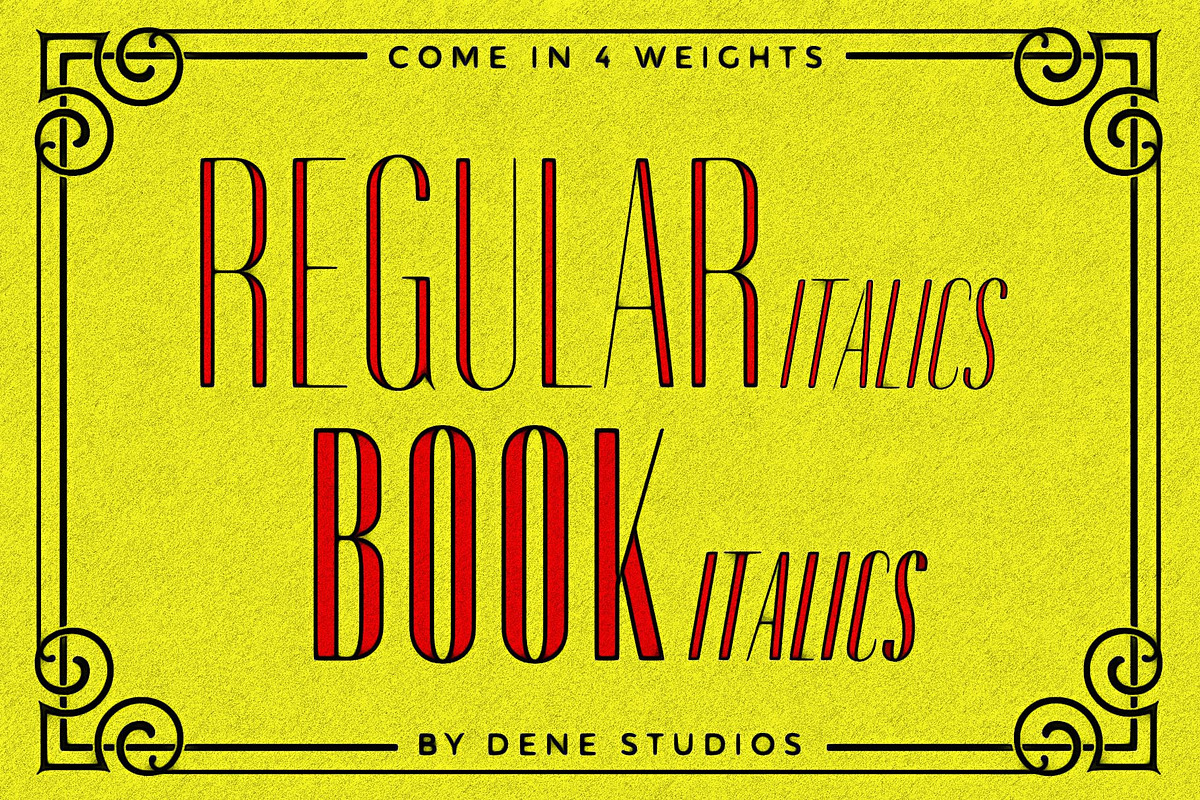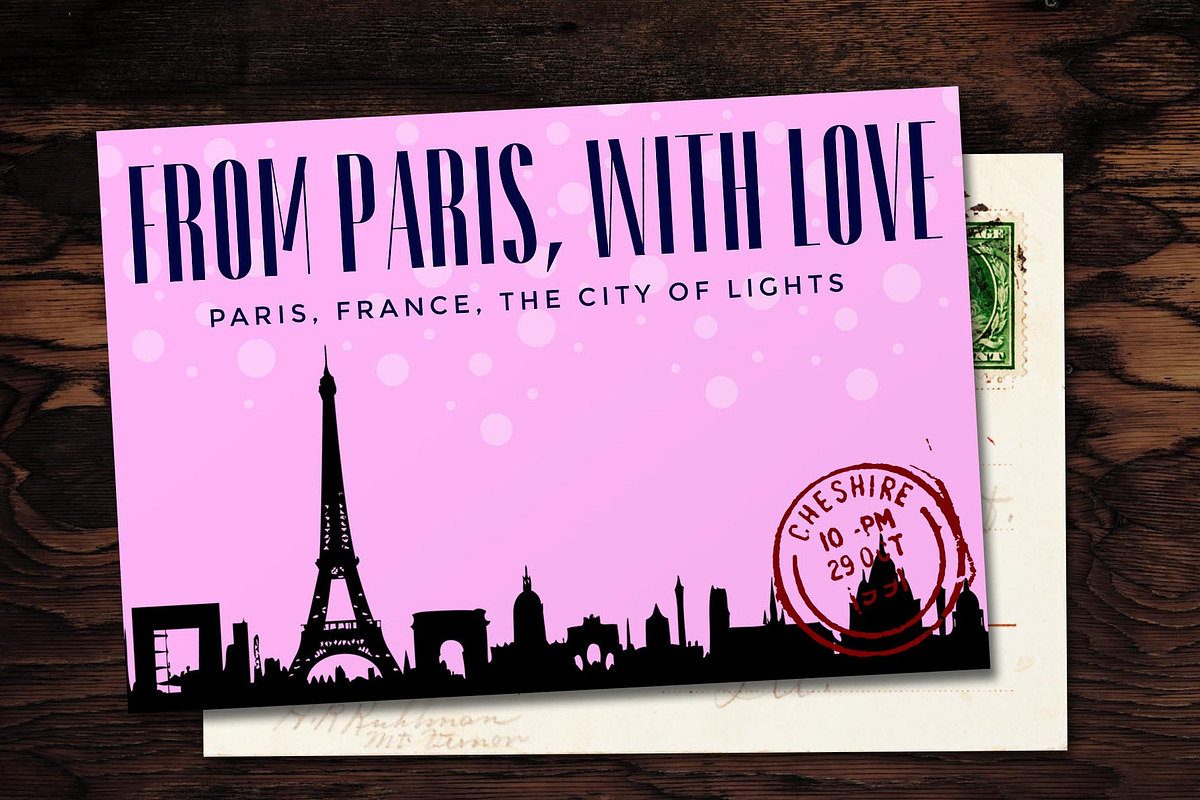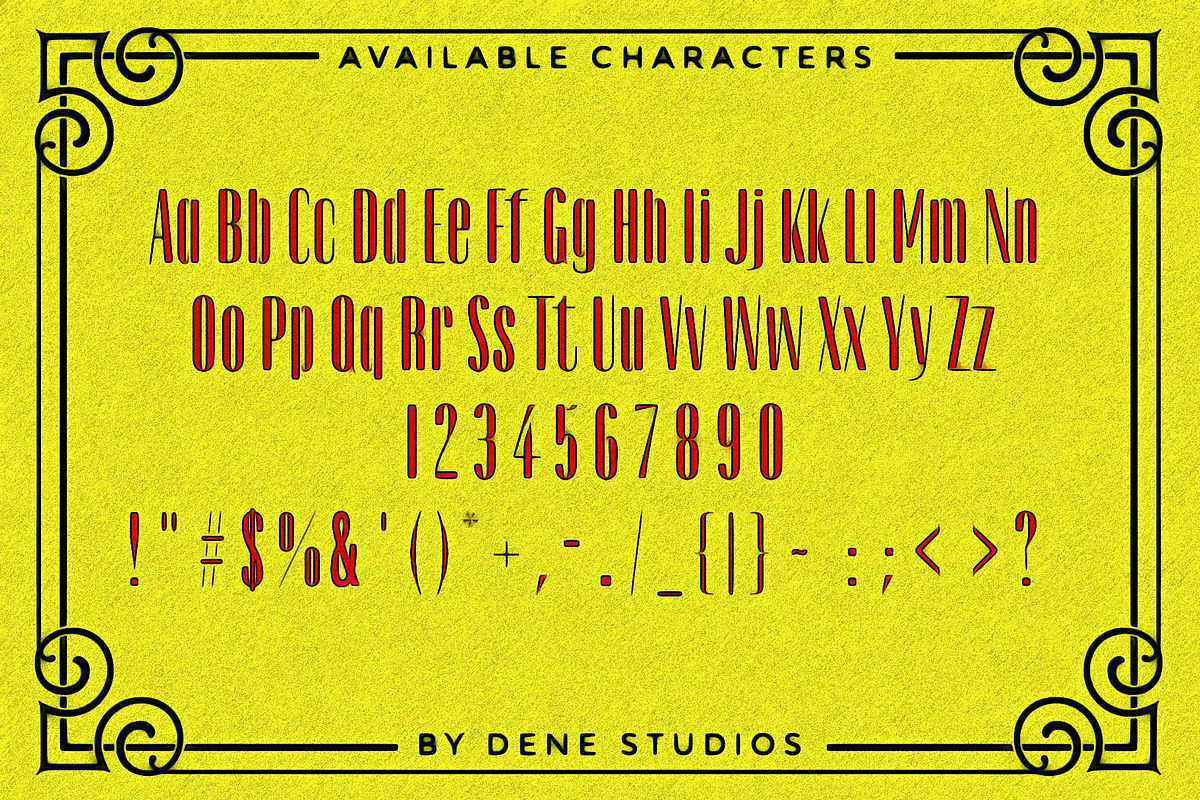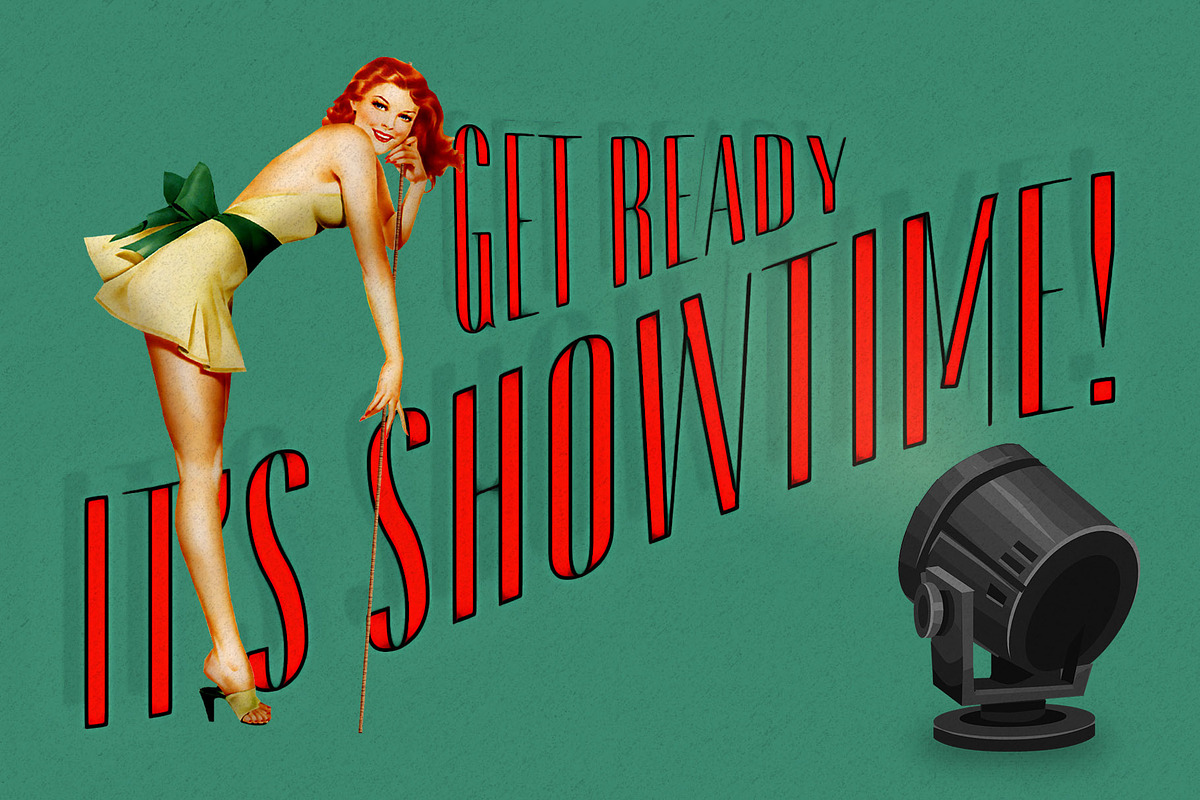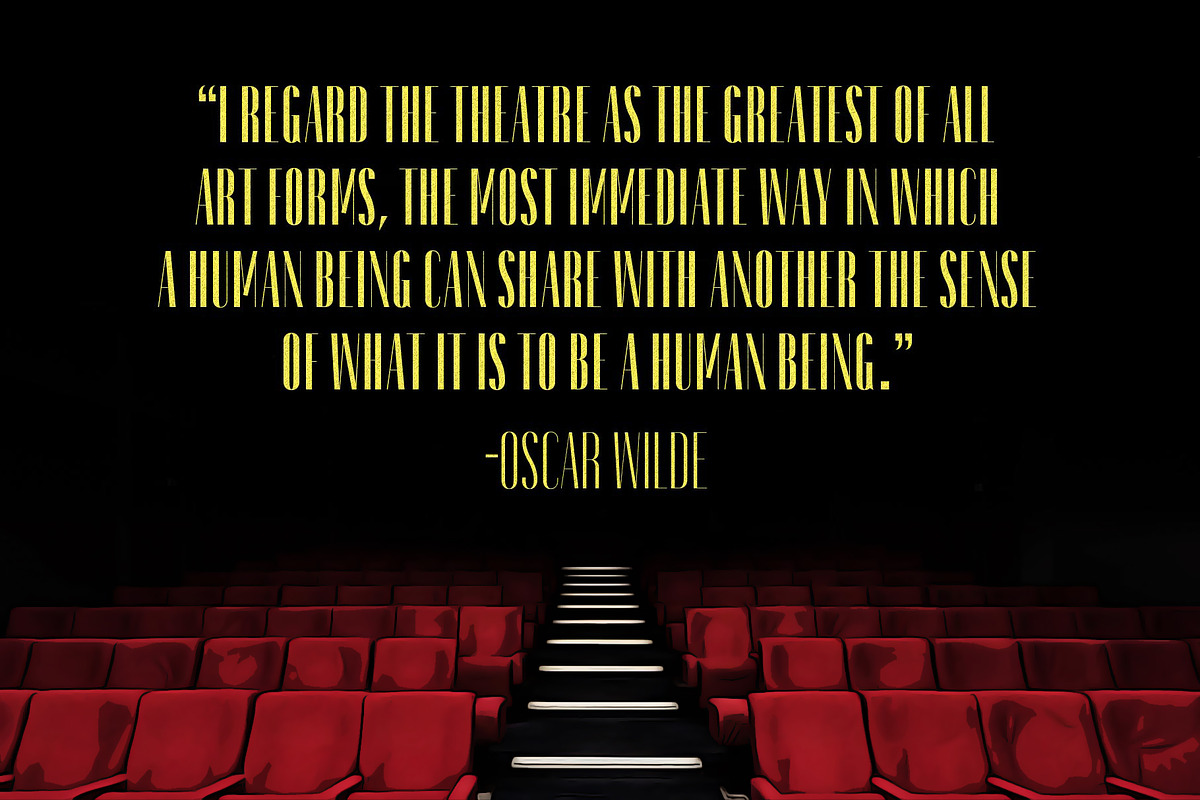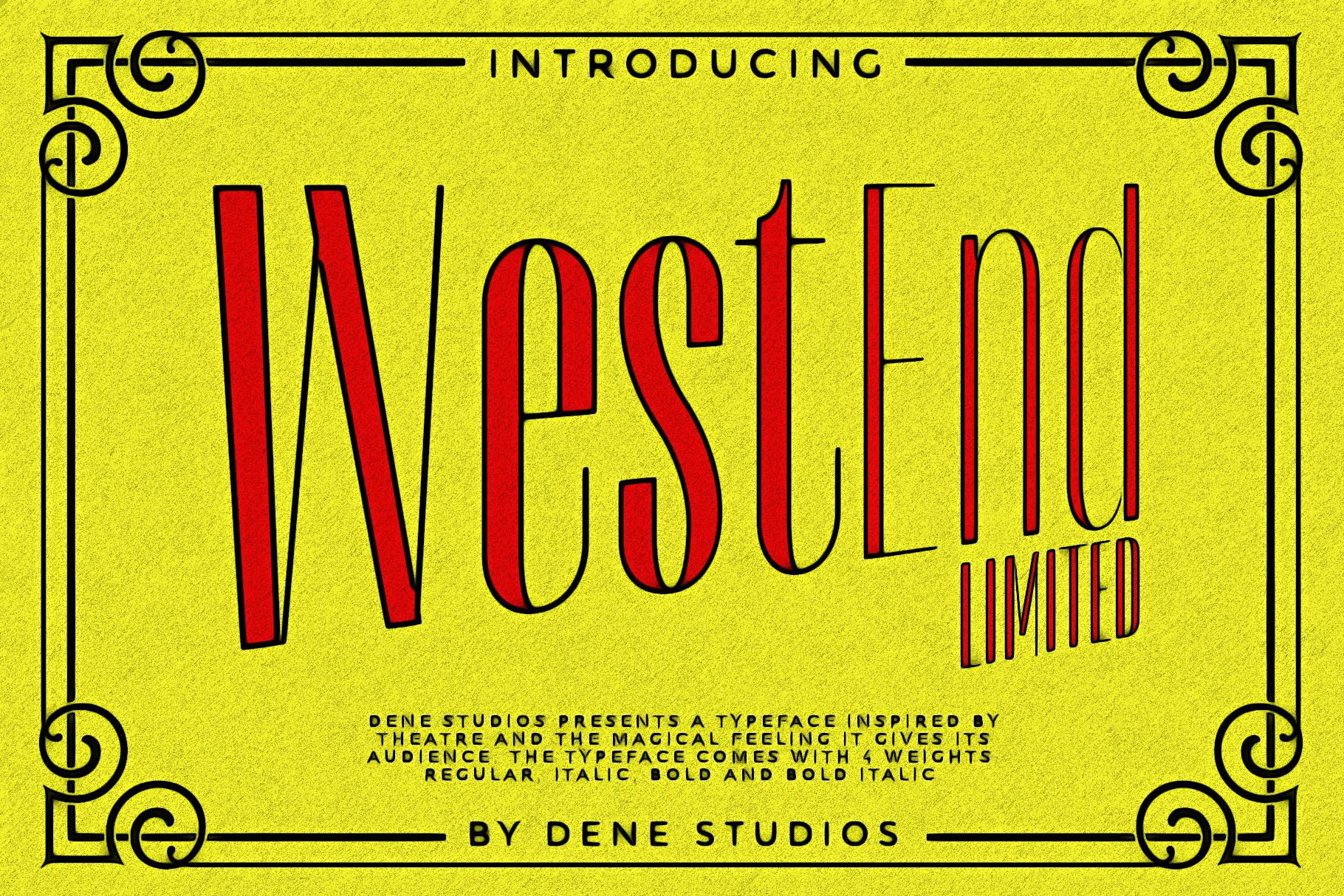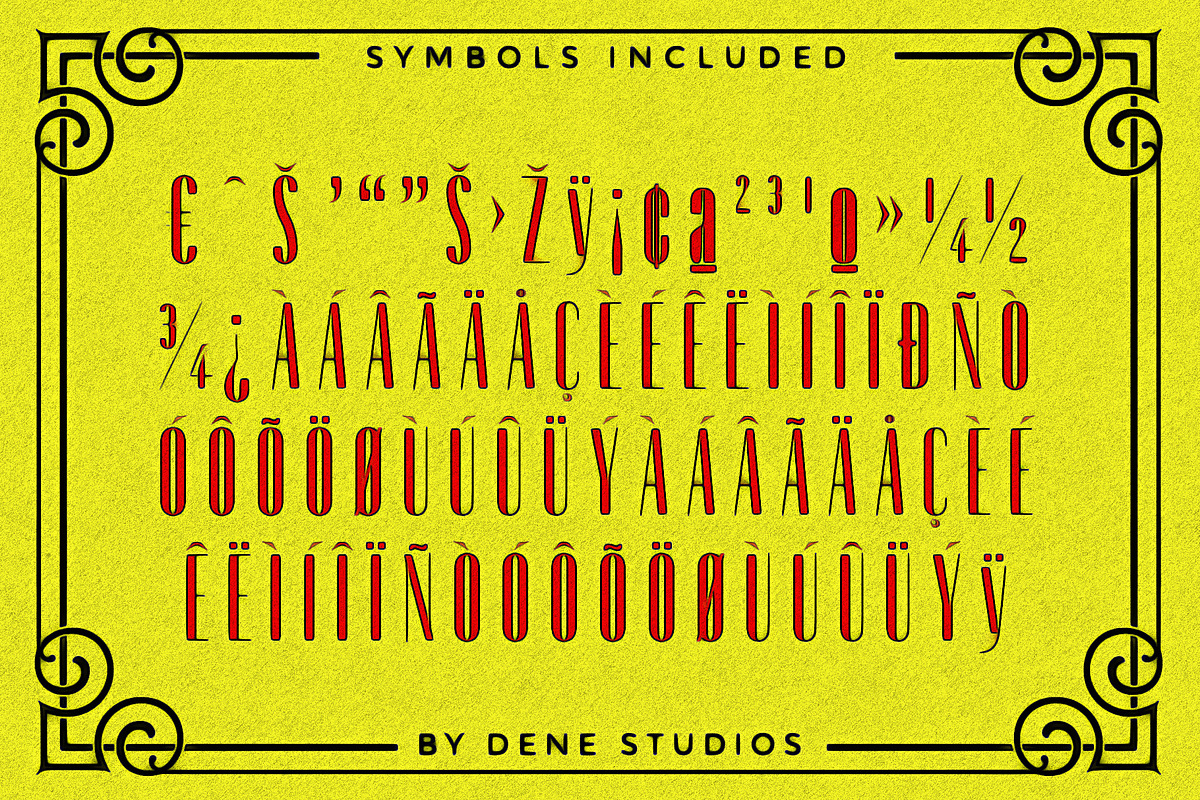
West End Limited Typeface
Inspired by theatre, the typeface is bold, elegant, modern with a touch of classic. The typeface contains both masculine and feminine qualities that make it great for many styles.
It will good for theatre or art posters and the same good for modern music web-pictures or vinyl covers. West End Limited also will work well for logos, cafes, restaurants, magazine headers, signs, postcards and more.